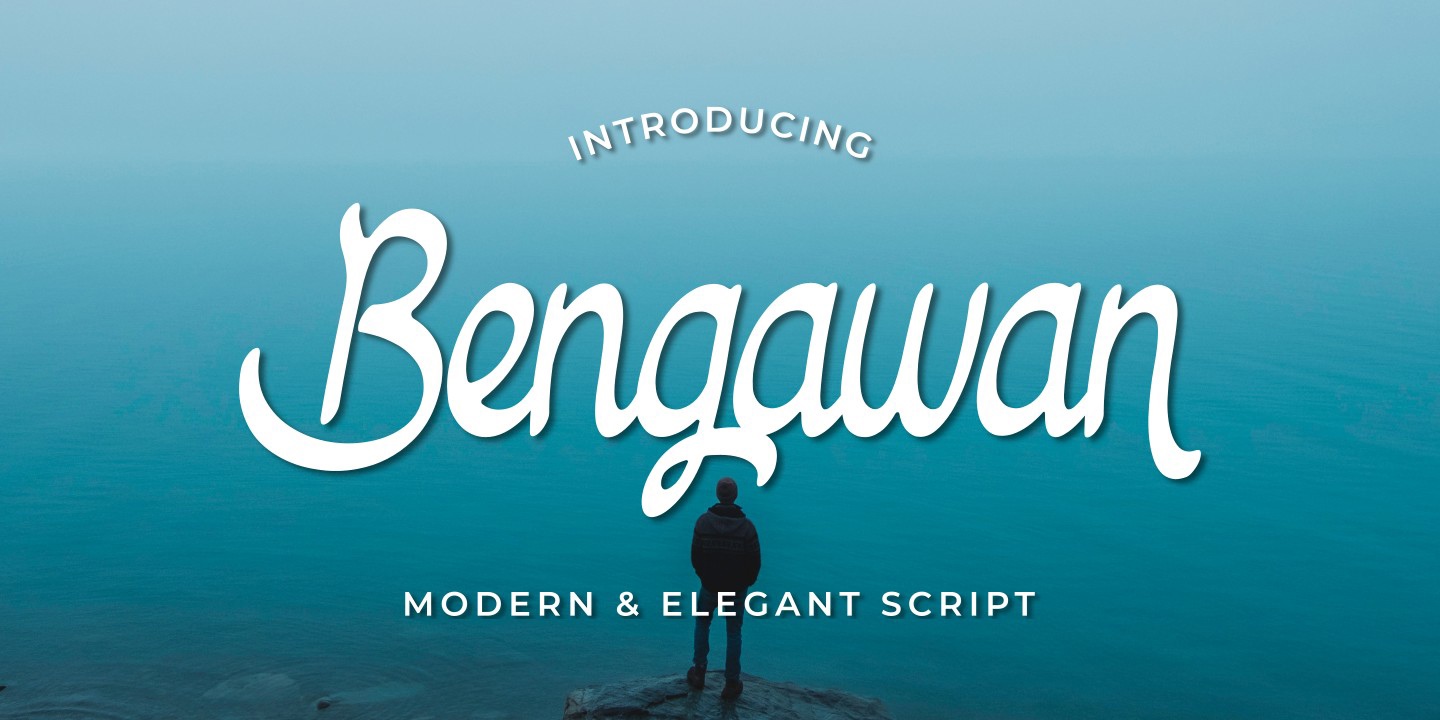
Bengawan Font
Bengawan Font is perfect for various design applications including Southeast Asian restaurant branding, tropical resort signage, Indonesian cultural event materials, exotic travel destination promotions, ethnic food packaging, traditional craft workshop displays, cultural heritage celebrations, Indonesian language publications, tropical lifestyle brands, and authentic Southeast Asian tourism campaigns. This flowing typeface excels in projects requiring tropical elegance and Southeast Asian cultural authenticity that captures the serene beauty and rich traditions of Indonesian heritage.
What makes Bengawan Font so exciting is its graceful embodiment of Indonesian cultural elegance and tropical sophistication through letterforms that suggest flowing rivers and the gentle curves of traditional Indonesian art and architecture. The font features organic flowing construction that mirrors traditional batik patterns, elegant proportions that communicate cultural refinement and tropical tranquility, and distinctive character details that evoke hand-carved traditional scripts and the artistic heritage of Indonesian craftsmanship. Its distinctive cultural character and tropical appeal make it perfect for brands seeking to communicate Southeast Asian authenticity, cultural respect, and the serene beauty of Indonesian traditions and tropical lifestyle.
Bengawan Font family includes flowing weights and cultural variations that enhance its versatility for different Southeast Asian applications. Each style maintains the font's signature cultural character while providing options for various traditional design approaches. The family also features Indonesian-inspired decorative elements, tropical flourishes, and cultural ornaments that can be combined with the letterforms to create cohesive Southeast Asian heritage design systems.
Whether you're developing cultural brands, tropical tourism services, or Southeast Asian communications, Bengawan Font Free Download provides authentic typography that transports audiences to the beautiful landscapes of Indonesia and celebrates the rich cultural heritage of Southeast Asian traditions. This typeface transforms ordinary communications into cultural journeys that promise authentic tropical experiences and cultural appreciation. The font's cultural appeal makes it particularly effective for Indonesian restaurants, tropical resorts, and cultural organizations targeting audiences who appreciate Southeast Asian culture and tropical elegance.
Bengawan Font stands out by delivering genuine Indonesian cultural authenticity that feels respectfully connected to real Southeast Asian traditions rather than superficial tropical theming. Its carefully crafted cultural proportions and traditional details ensure that designs feel authentically connected to Indonesian heritage and Southeast Asian artistic traditions. From cultural restaurant branding to tropical tourism materials, this font provides designers with tools to create communications that celebrate Indonesian culture and inspire appreciation for Southeast Asian heritage through flowing, culturally-inspired typography that honors the beauty of tropical traditions.